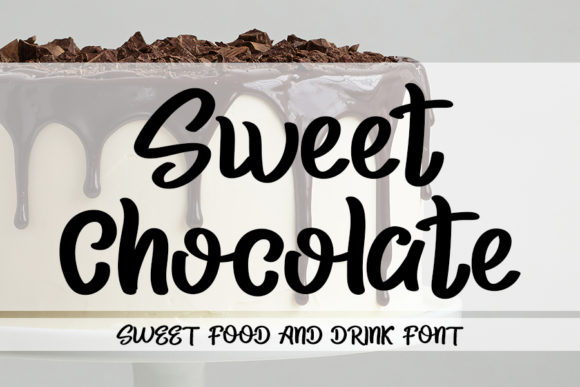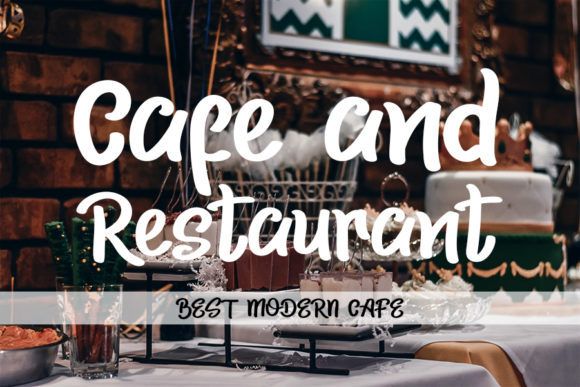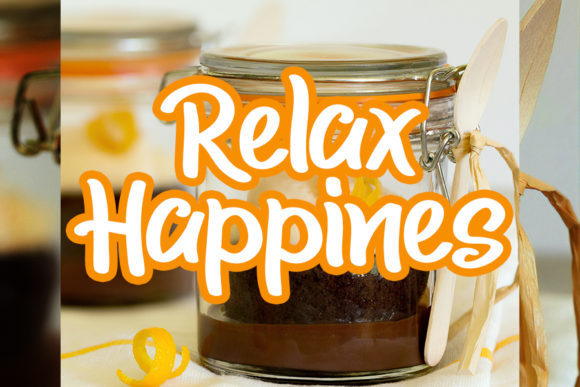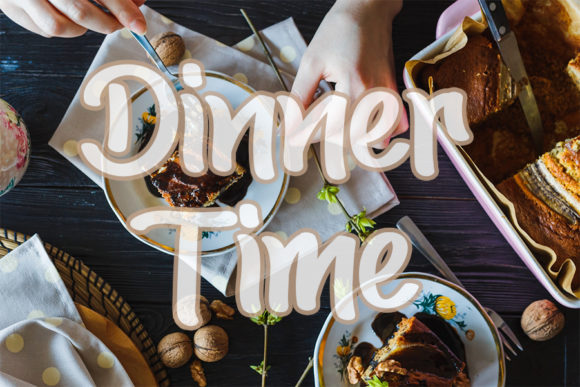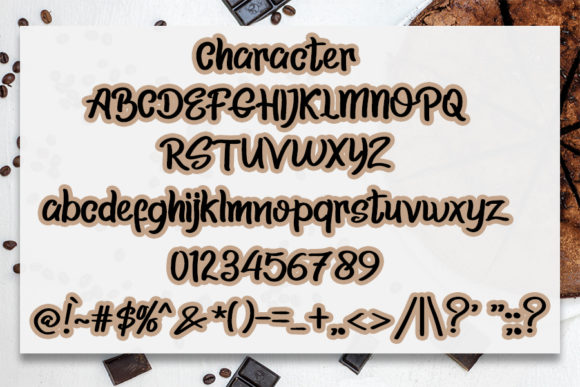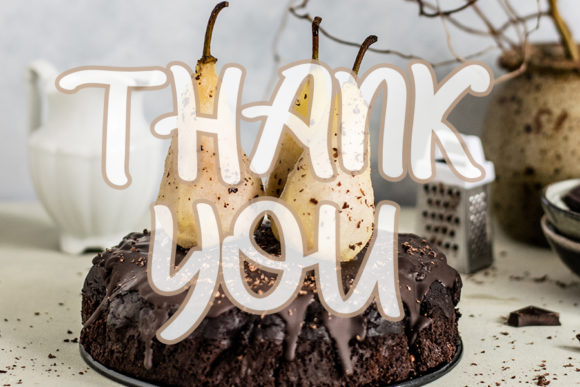
Sweet Chocolate Font
About Sweet Chocolate Font
Sweet Chocolate is a casual and relaxed script font. Fall in love with its incredibly versatile style and use it to create gorgeous wedding invitations, beautiful stationary art, eye-catching social media posts, and much more!